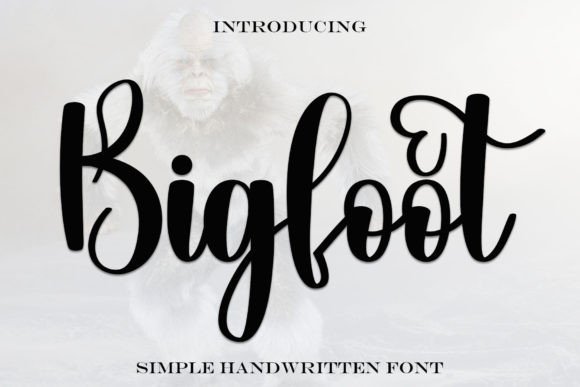
The Quest for the Perfect Font
Do you remember that moment when you finally found the perfect font for your design project? It’s like stumbling upon a hidden treasure – the words come alive, and the message shines through. That’s exactly what happened when I discovered Bigfoot Font, a trendy handwritten font that adds a touch of elegance to any design.
Bigfoot Font is more than just a stylish addition to your projects – it’s a way to breathe life into your words. Inspired by timeless classic calligraphy, this font exudes a contemporary atmosphere and impeccable form, making it a valuable asset for designers. Whether you’re working on a branding project or creating a social media campaign, Bigfoot Font is sure to make a statement.
Bigfoot Font Key Features
- Character Count: The font contains over 800 glyphs, including a wide range of characters, punctuation, and symbols, making it suitable for various languages and applications.
- Unique Characteristics: Bigfoot Font features a distinctive, hand-drawn design with bold lines and intricate details, giving it a unique and eye-catching appearance that sets it apart from other fonts.
- Language Support: The font supports multiple languages, including Latin, Cyrillic, and Greek scripts, making it a versatile choice for designers and publishers working with diverse languages and cultures.
Bigfoot Font Review
Overall, I’d say Bigfoot Font is an interesting choice for a font. It’s certainly one-of-a-kind and might work well for projects that need a bold, quirky feel.
- Unique character: Bigfoot Font has a distinct, playful feel that sets it apart from more traditional fonts.
- High contrast: The font’s bold lines and strong contrast make it easy to read, even at smaller sizes.
- Fun for display text: Bigfoot Font is perfect for headings and titles, where you want to draw attention with a bold, eye-catching font.
- Limited legibility: While Bigfoot Font is bold and eye-catching, it can be difficult to read at smaller sizes or in long blocks of text.
- Lack of versatility: The font’s quirky feel might not be suitable for all types of projects, such as formal documents or serious publications.
- Not ideal for body text: Bigfoot Font is best used for display text, as it can be overwhelming to read in large blocks.
Bigfoot Font is a fun, quirky choice that’s perfect for projects that need a bold, eye-catching feel. While it may not be suitable for all types of projects, it’s a great option for headings, titles, and display text. Just be mindful of its limitations and use it wisely.
Alternatives to Bigfoot Font
Carolyna Pro is a modern sans-serif font that offers a similar feel to Bigfoot Font. It is perfect for use in magazines, newspapers, and other publications that require a bold and attention-grabbing font. While it lacks the distressed texture of Bigfoot Font, Carolyna Pro has a similar energetic and dynamic feel.
Montserrat is a geometric sans-serif font that is similar to Bigfoot Font in terms of its modern and urban feel. It is ideal for use in digital design, such as websites and mobile apps, where a clean and minimalist look is desired. Unlike Bigfoot Font, Montserrat has a more polished and refined appearance.